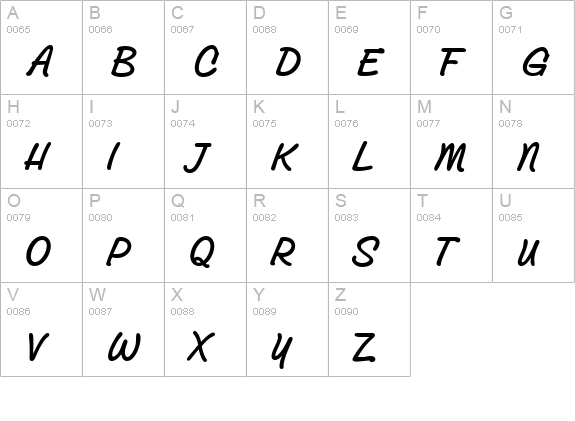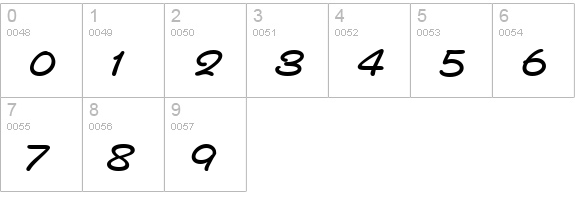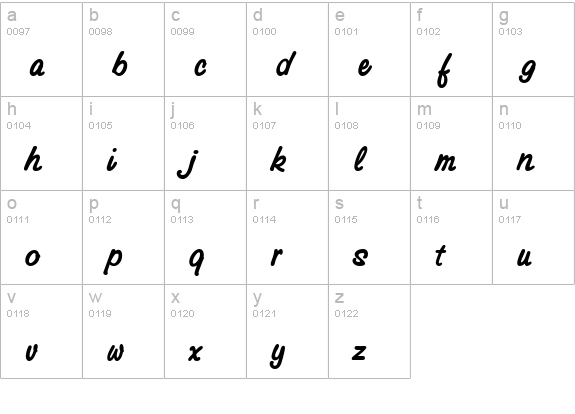
GroveScriptBold Font Details
Introducing GroveScriptBold font, a bold and eye-catching typeface that is sure to make your designs stand out. With its strong and dynamic appearance, GroveScriptBold is perfect for headlines, titles, and other attention-grabbing text. This versatile font is free to download at FontsMarket.com, making it accessible to everyone looking to add a modern and impactful touch to their projects. Whether you're working on posters, flyers, logos, or any other design, GroveScriptBold is a fantastic choice that will help you make a bold statement. Download now and unleash the power of GroveScriptBold in your creative endeavors.